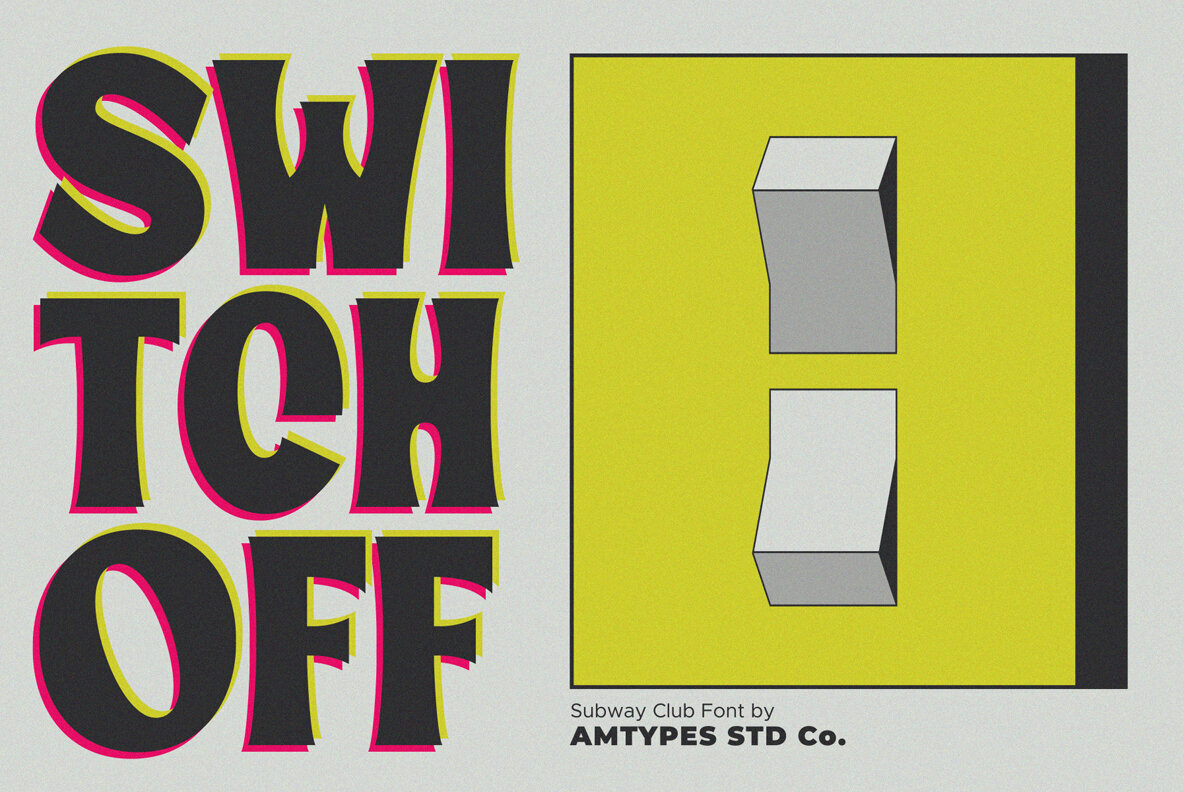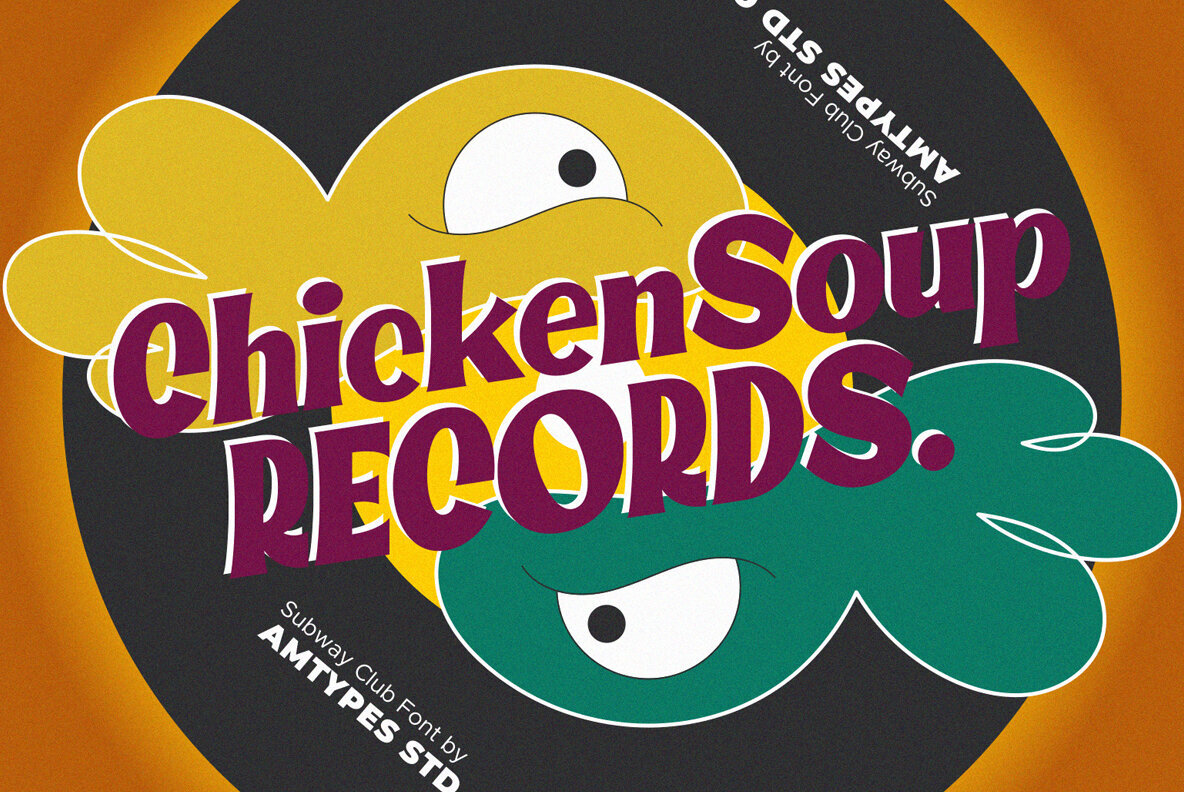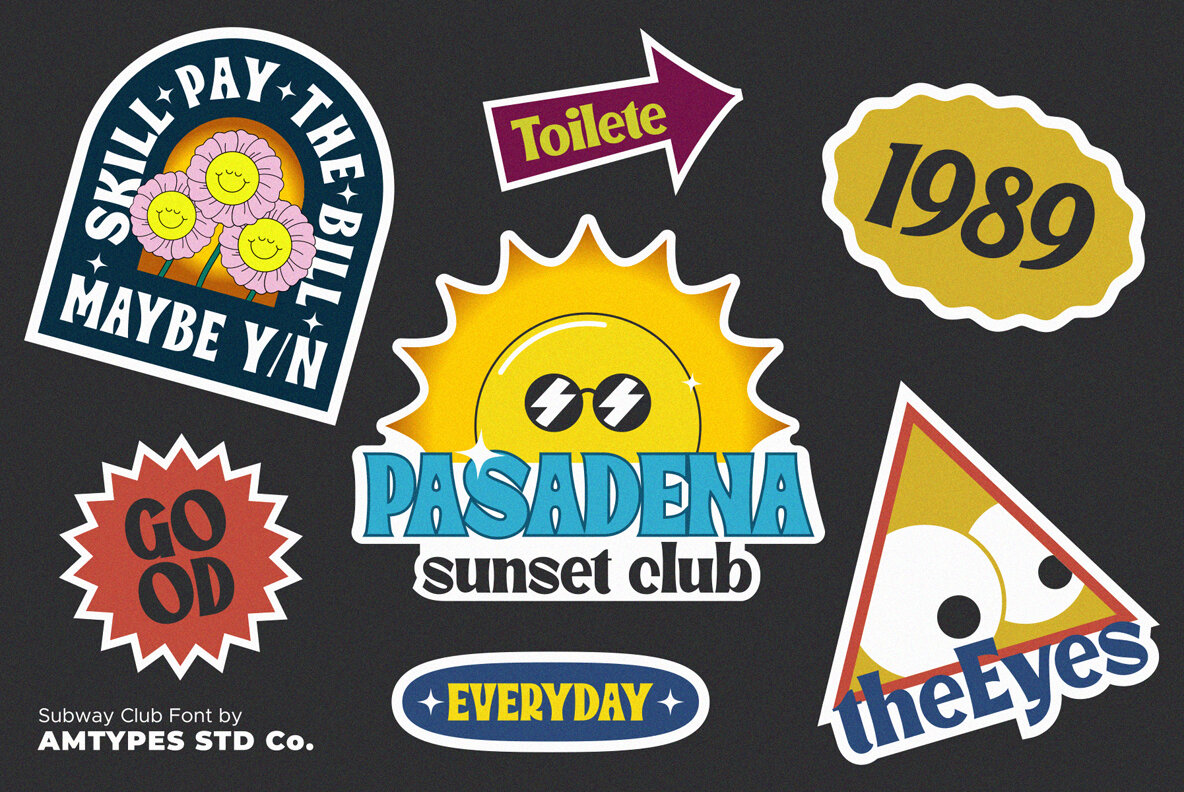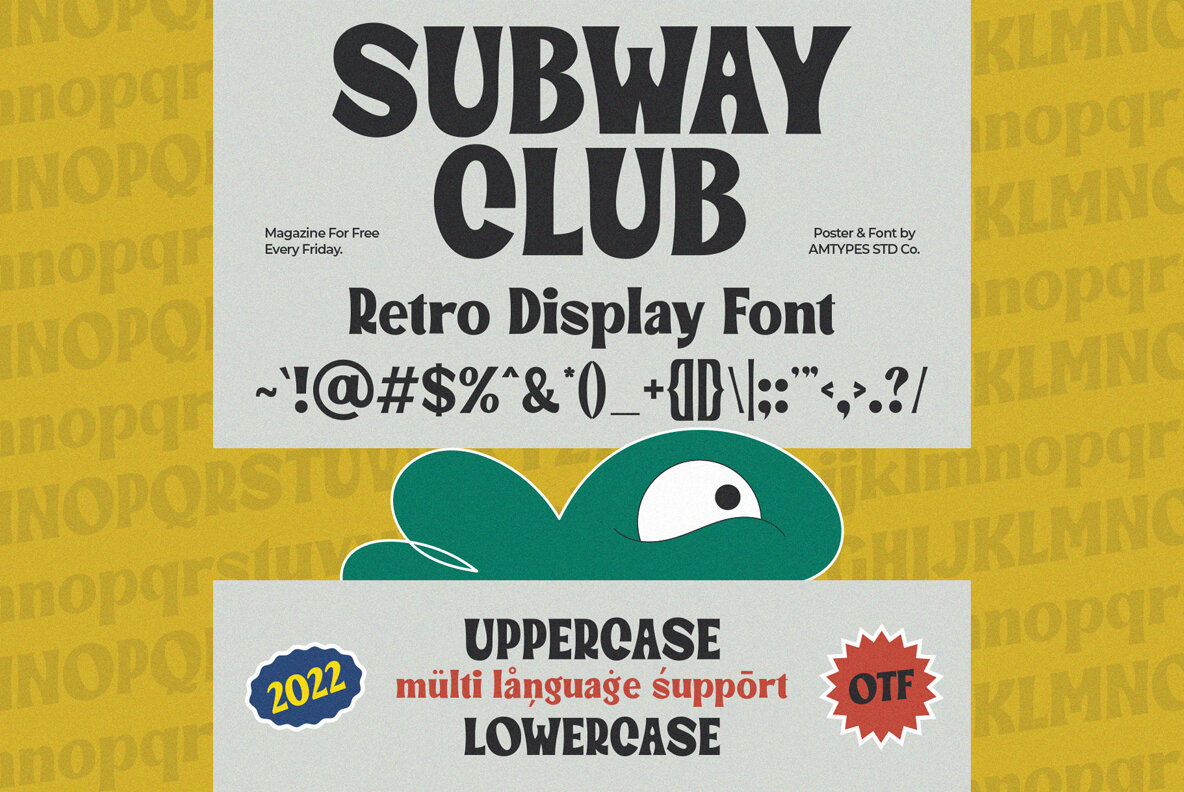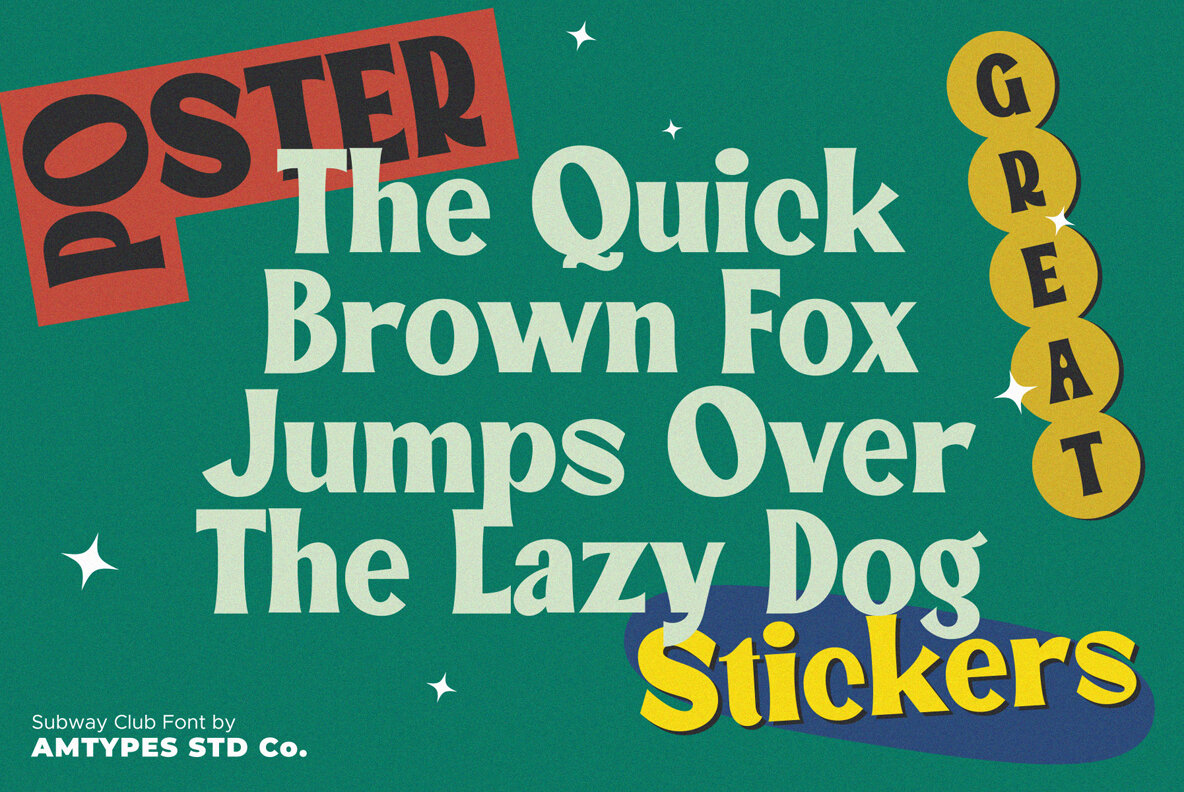
Subway Club Font
Subway Club
Subway Club captures the essence of retro design with its bold and nostalgic appeal. Tailored for print and digital mediums, this font is ideal for projects wanting to evoke a vintage feel, ranging from posters and stickers to invitations and banners.Subway Club: A Retro Display Font for Versatile Designs
Enhance your creative projects with the unique touch of Subway Club.